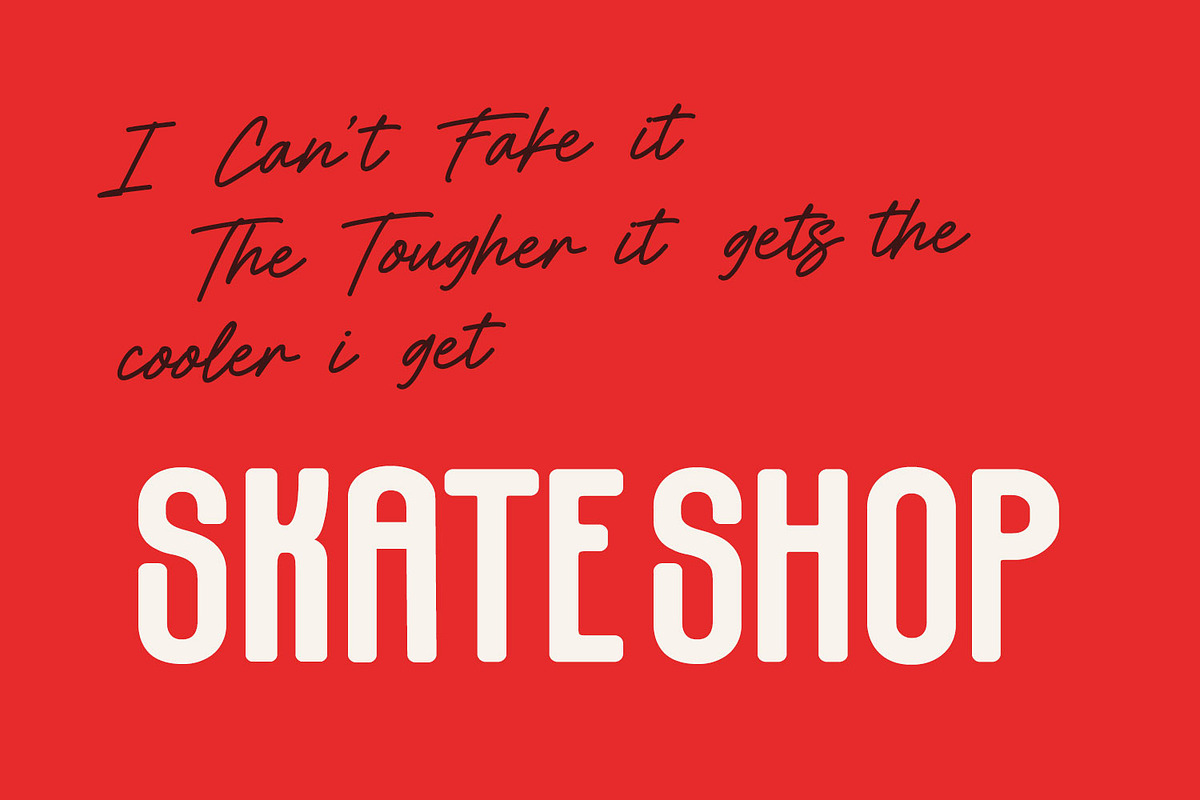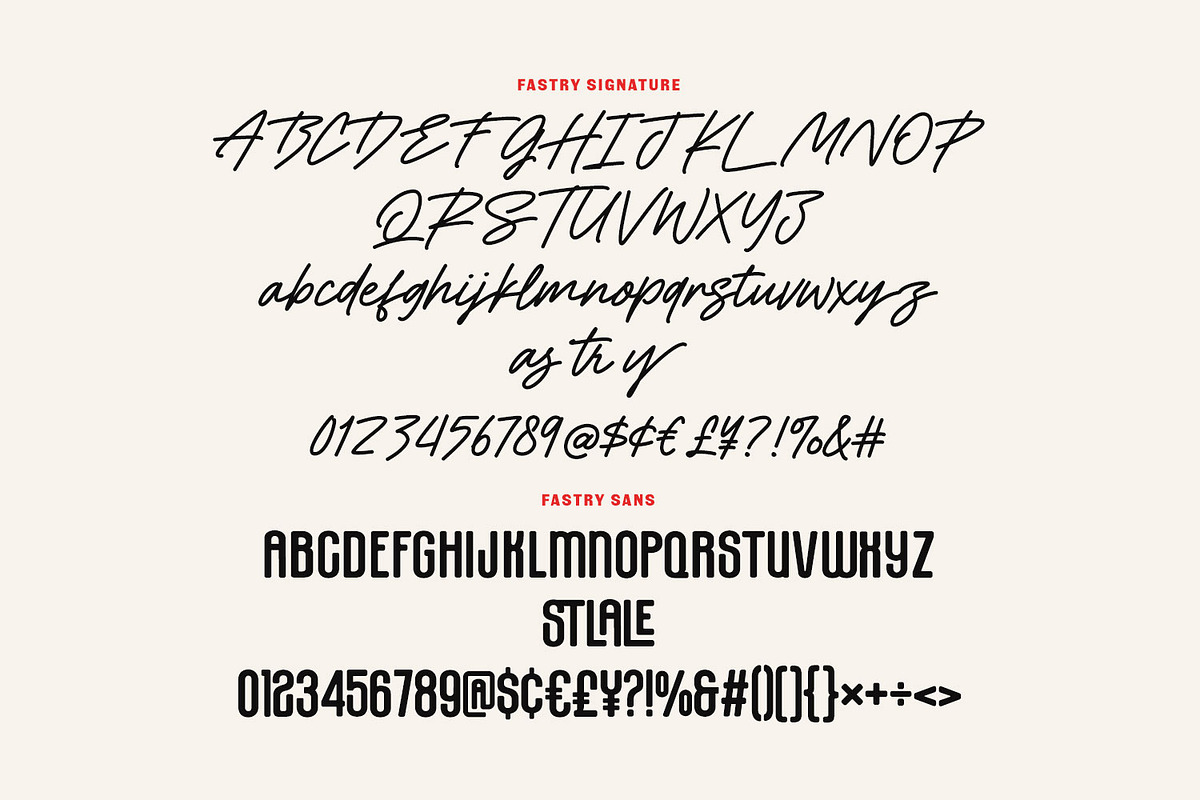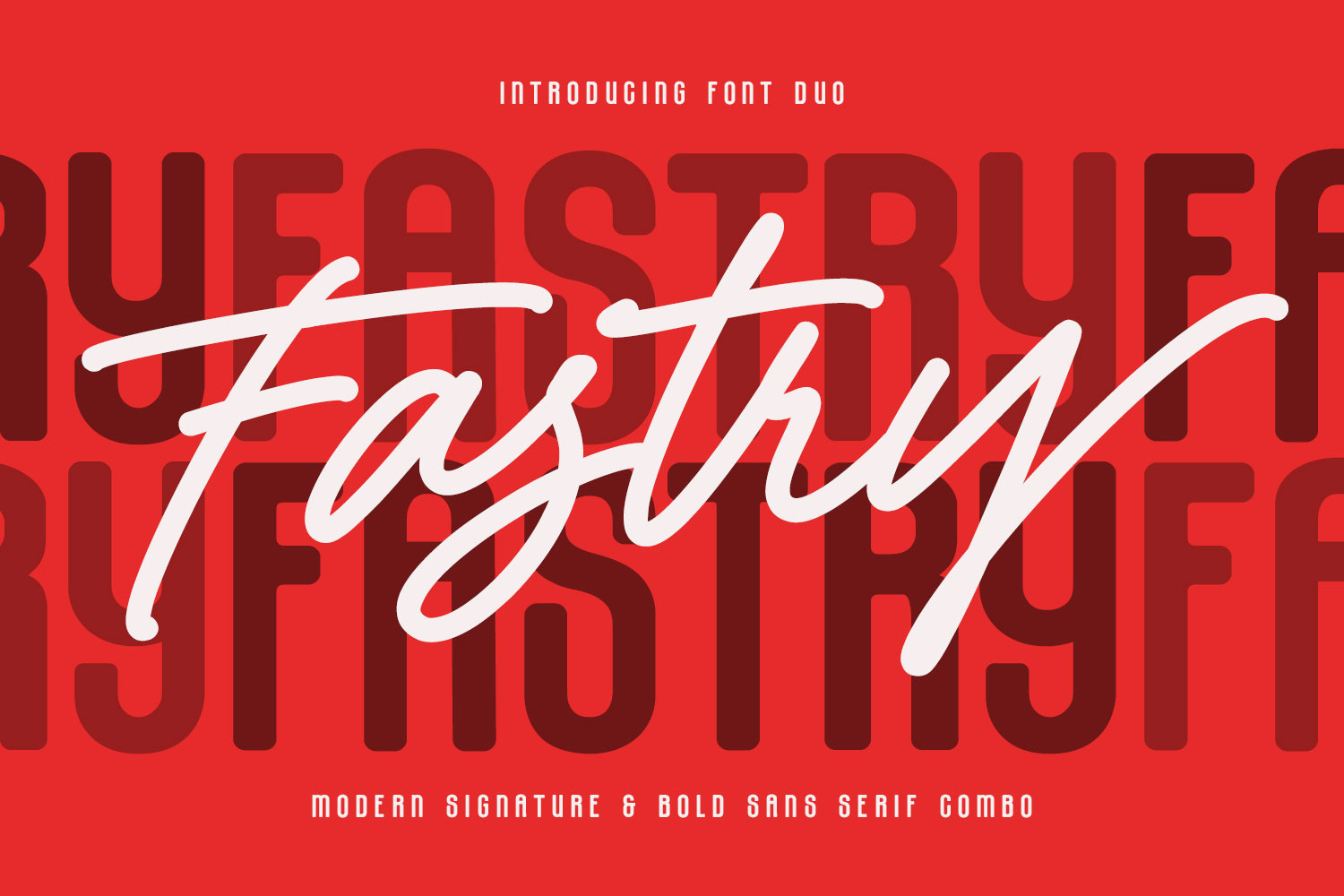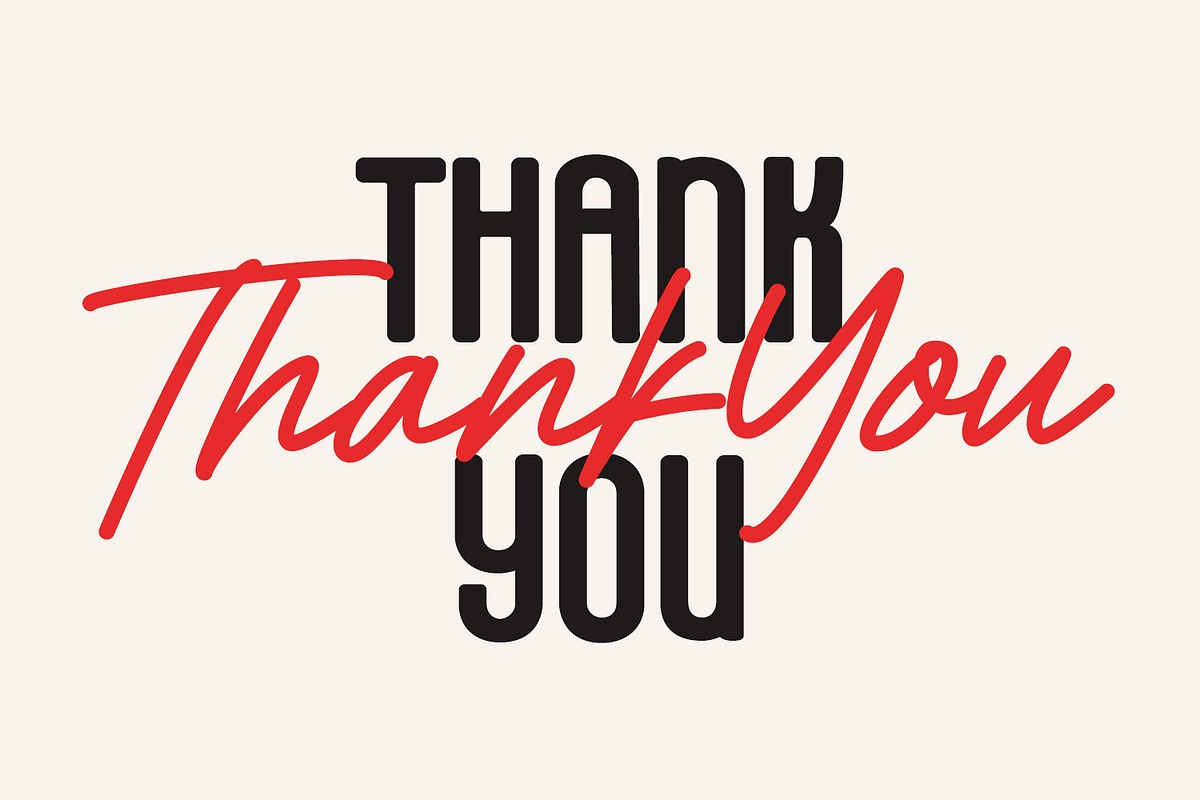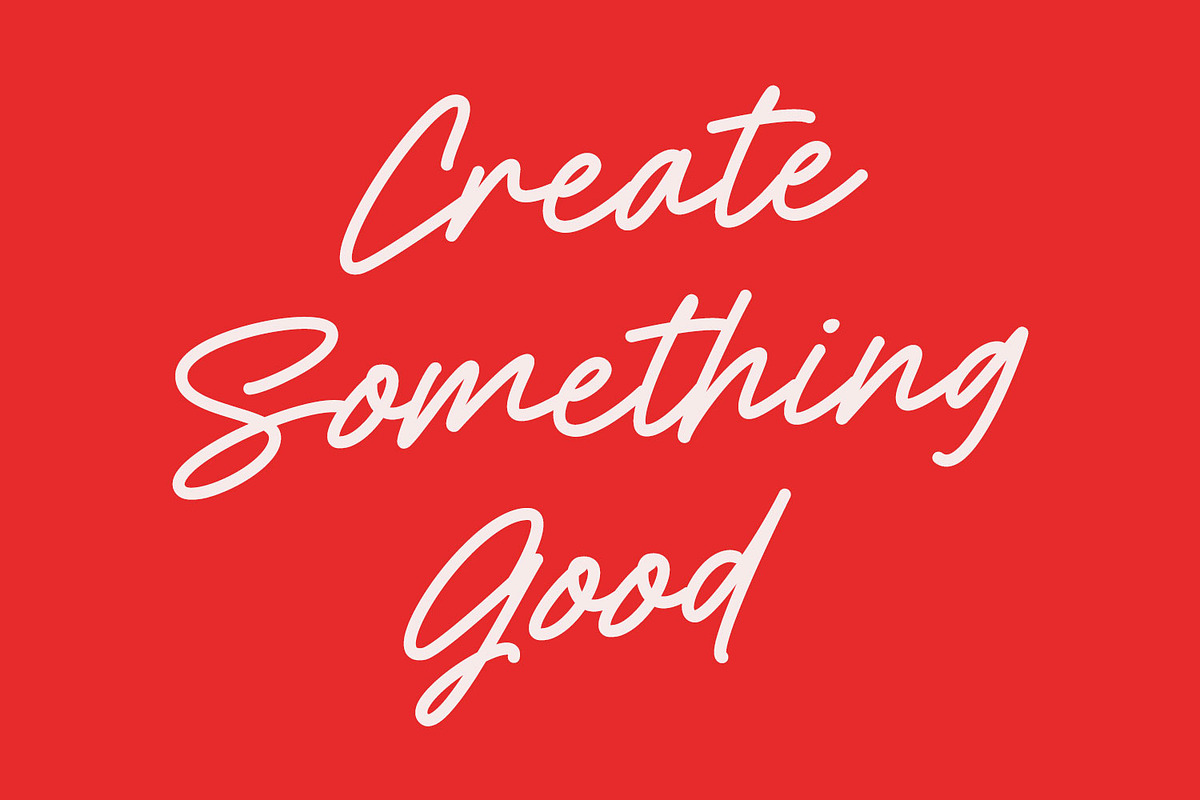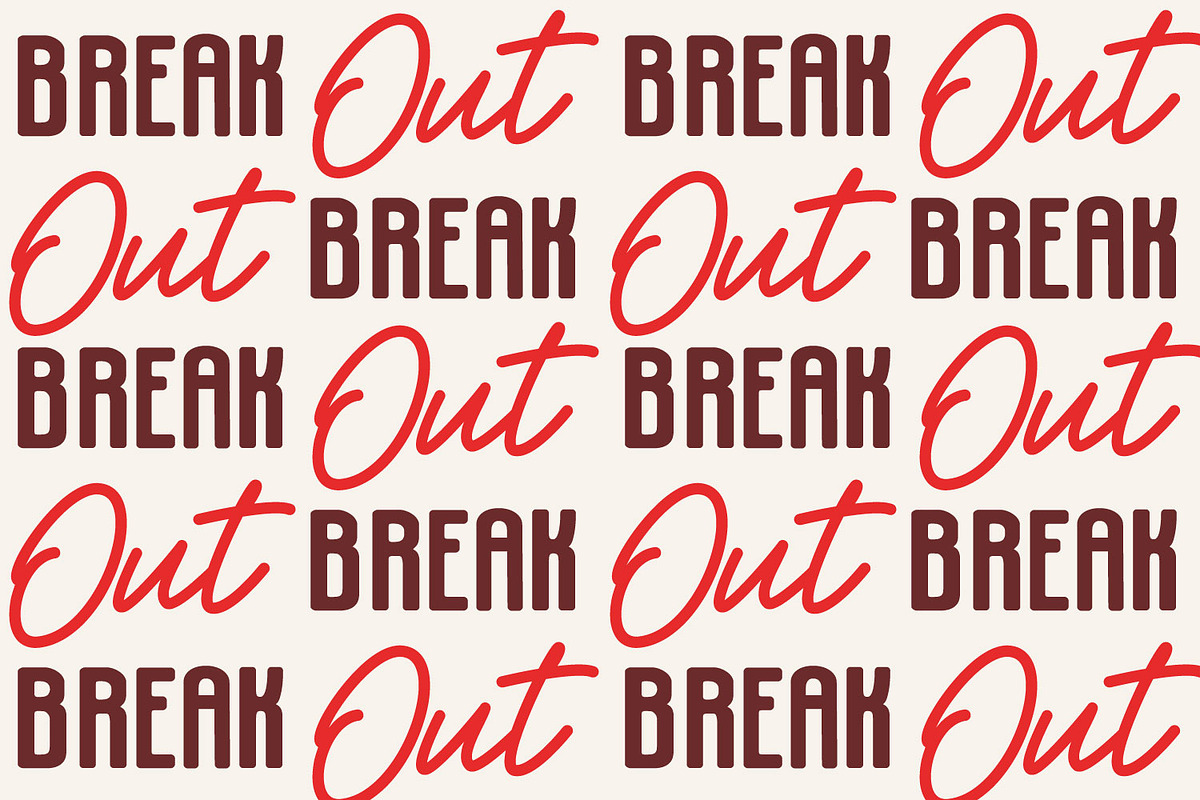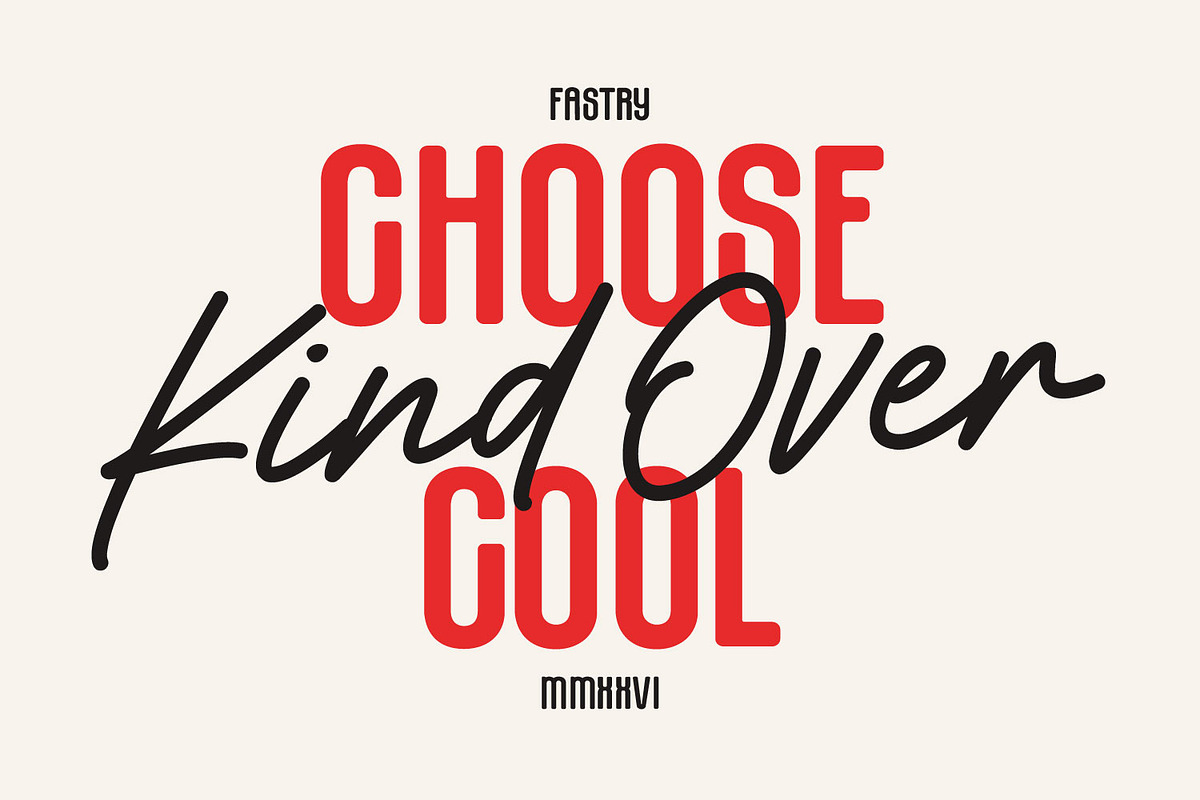
Fastry Font Duo Signature Sans Combo
Fastry is a dynamic font duo that perfectly balances elegance with a rugged, urban edge. It features a sleek, hand drawn Modern Signature script that flows with natural movement and a powerful, Bold Condensed Sans Serif that commands attention.
Designed for versatility, this pairing is ideal for branding, social media quotes, and high impact editorial layouts. Whether you are aiming for a sophisticated personal touch or a bold, athletic vibe, the Fastry Duo provides the perfect typographic harmony to make your designs break out from the crowd.
- Fastry Monoline include lowercase and uppercase.
- Fastry Sans include uppercase.
- Script and Sans include numbers, punctuation, and symbols.
- Script include ligatures and alternate for a natural handwriting flow.
- Sans include ligatures.
- Multilingual Support.